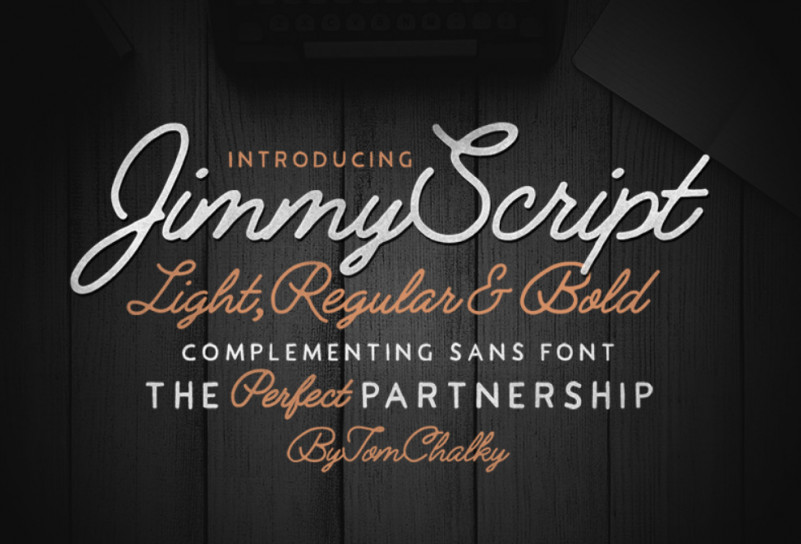
Jimmy Script Font
Getting the free font package today is a handcrafted font script. You have since used a good font like his: Magnite Brush Font.Introducing Jimmy Script Font! Jimmy designed and shared by Tom Chalky. Jimmy Font includes a handcrafted script font (Light, Regular, and Bold weights included!) and a perfectly complementing all capitals Sans (Regular and Bold weights included!). The styles of both Jimmy Script and Jimmy Sans were inspired by the modern vintage trend that is sweeping the design industry. Whilst the Script and Sans can be used effectively as separate fonts, they truly work their magic when combined!